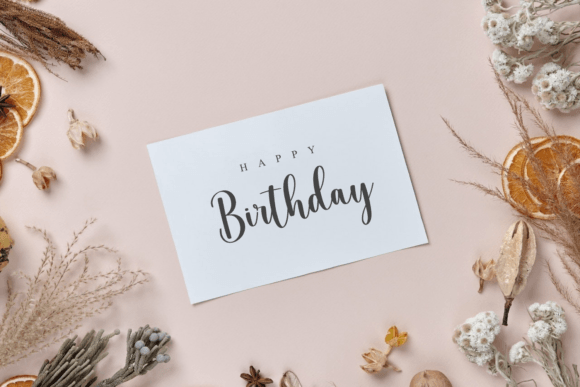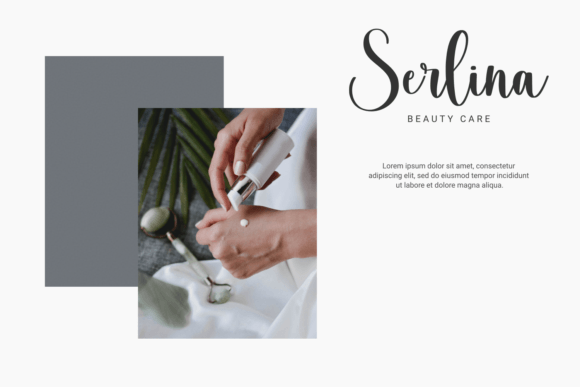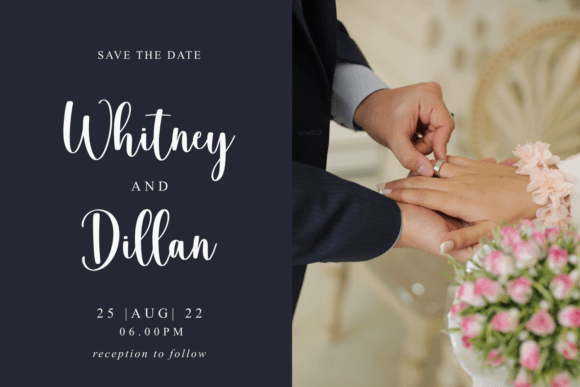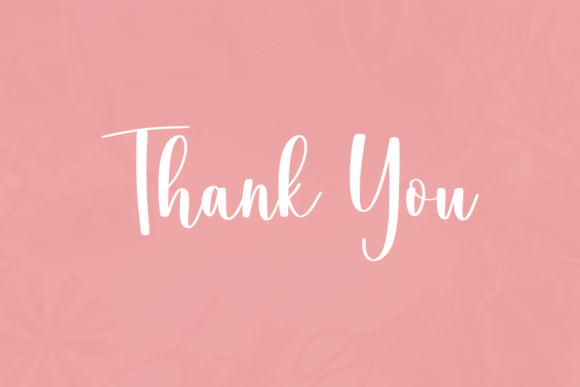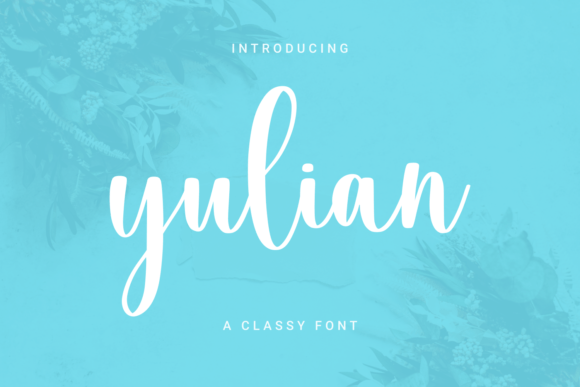
Yulian Font
About Yulian Font
Yulian is a sweet handwritten font. Add it to your logos, labels, branding, invitations, websites, quotes, and more, and it will boost your designs and make them a true standout!